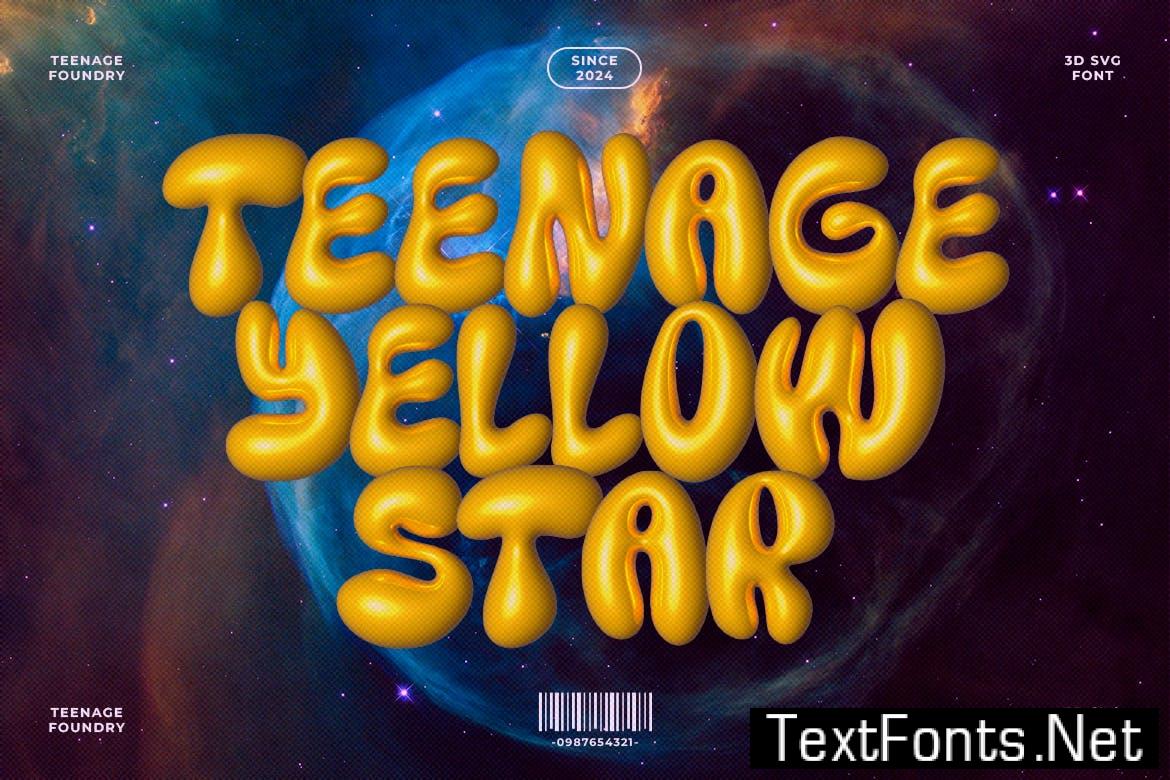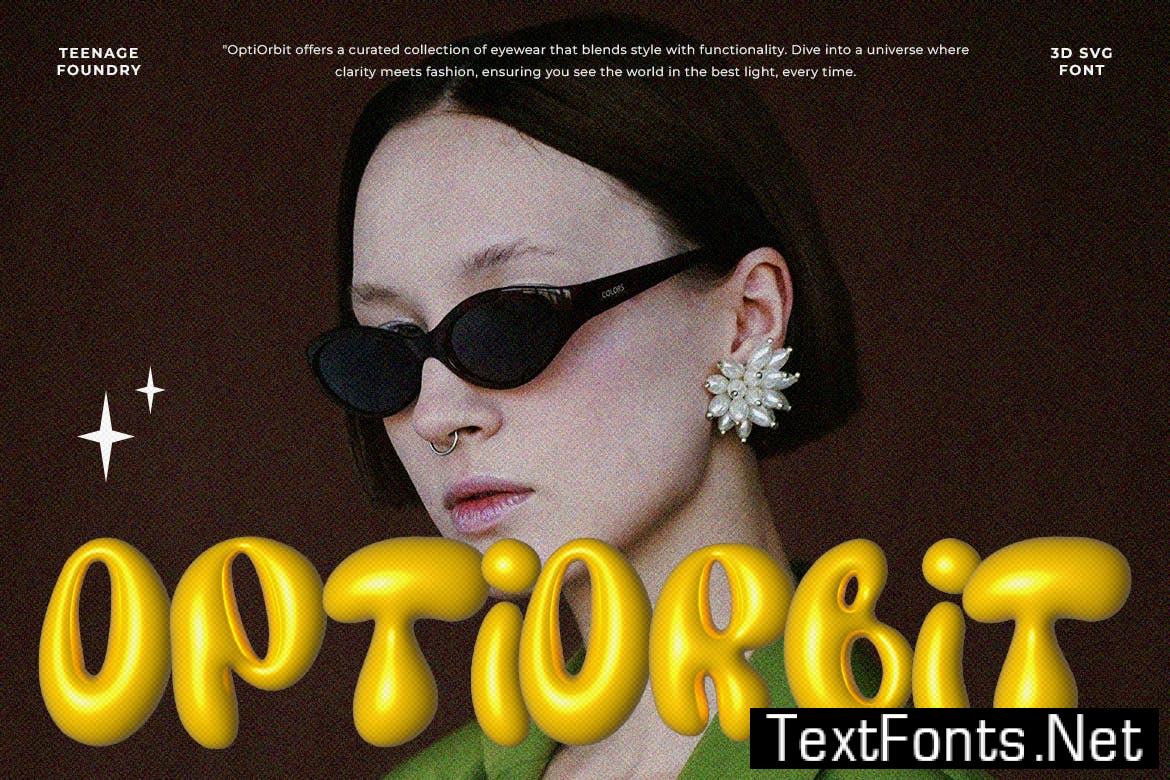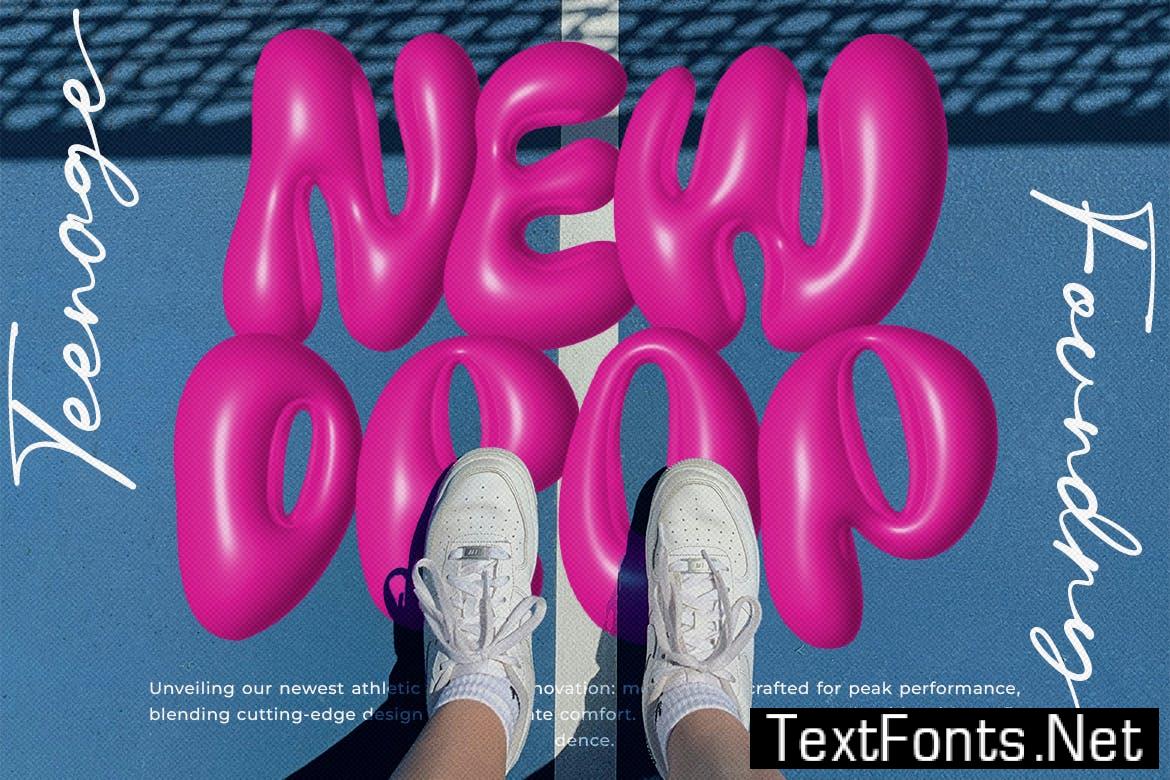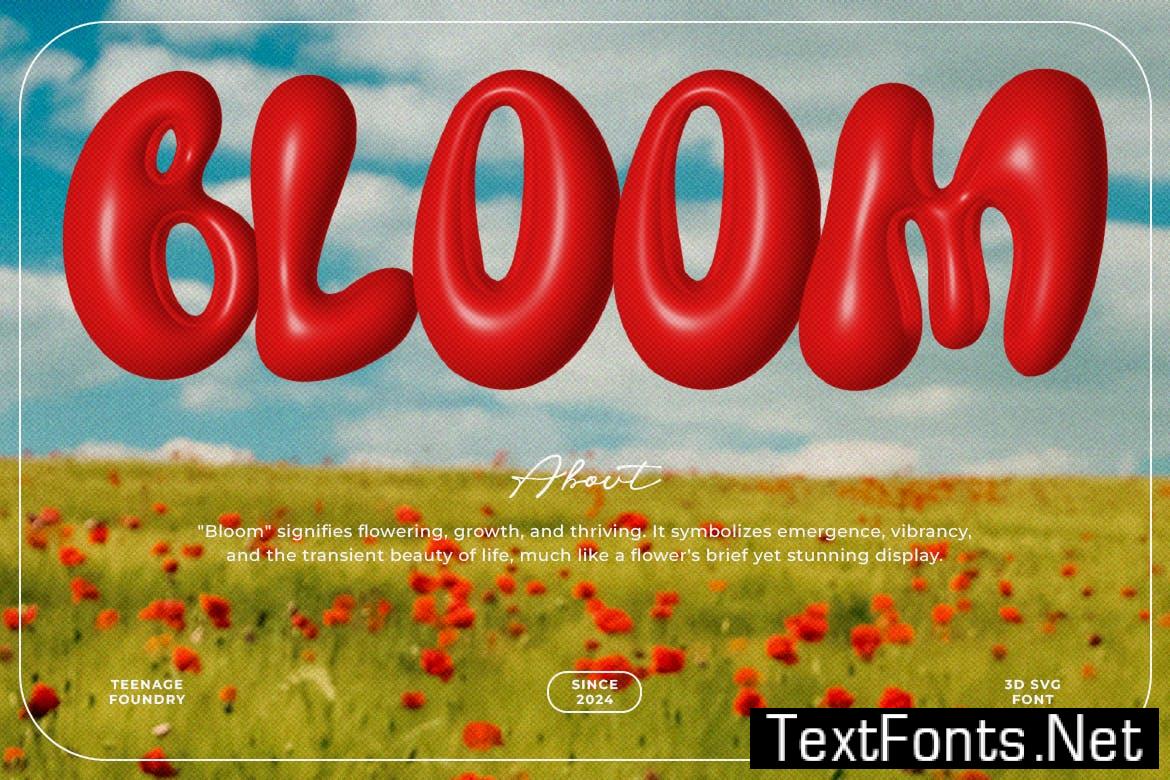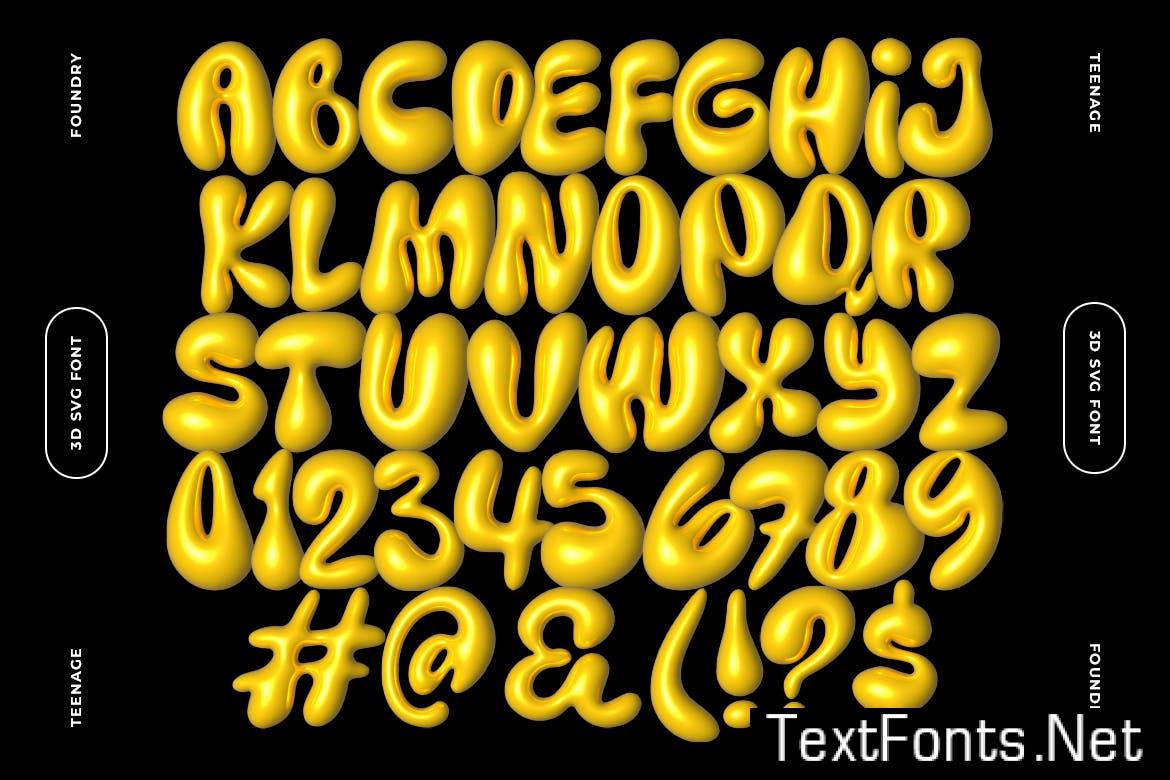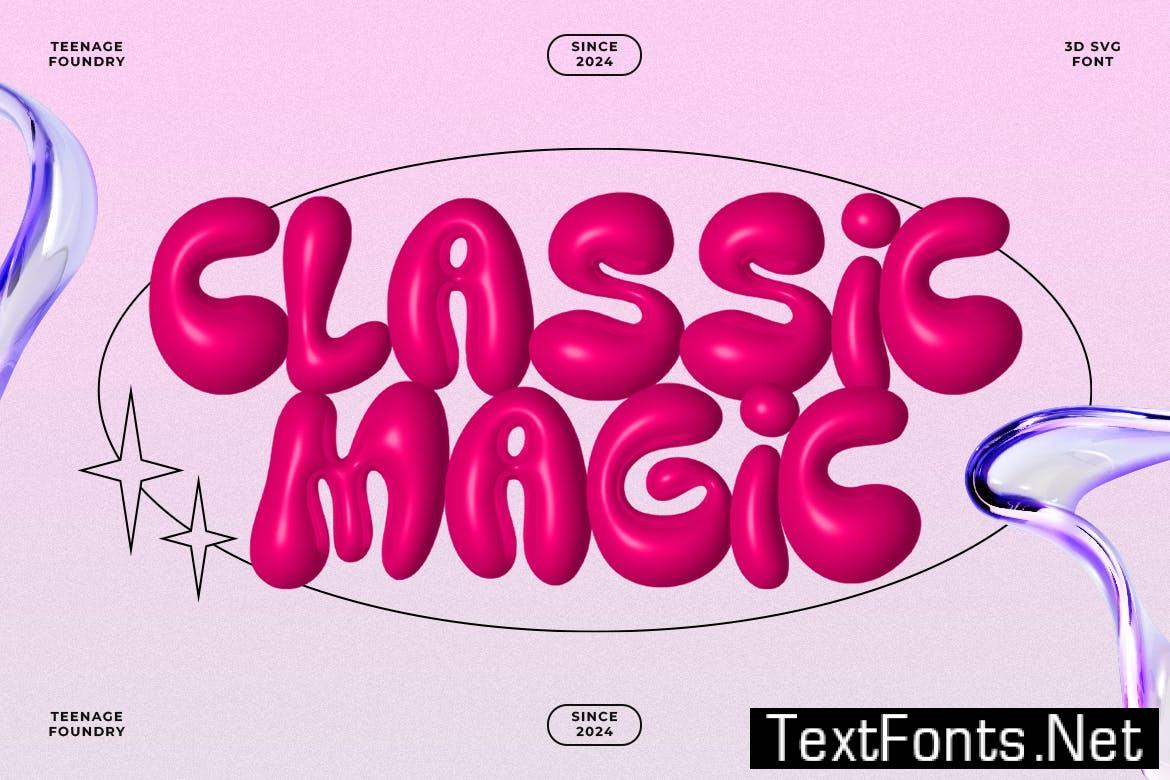
Teenage Yellow Star – 3D SVG Font By Teenage Foundry
It is perfect for contemporary designs. Great for poster designs, social media posts, logos etc.
Features: Uppercase, Lowercase, Numeral, Punctuation & Multilingual.